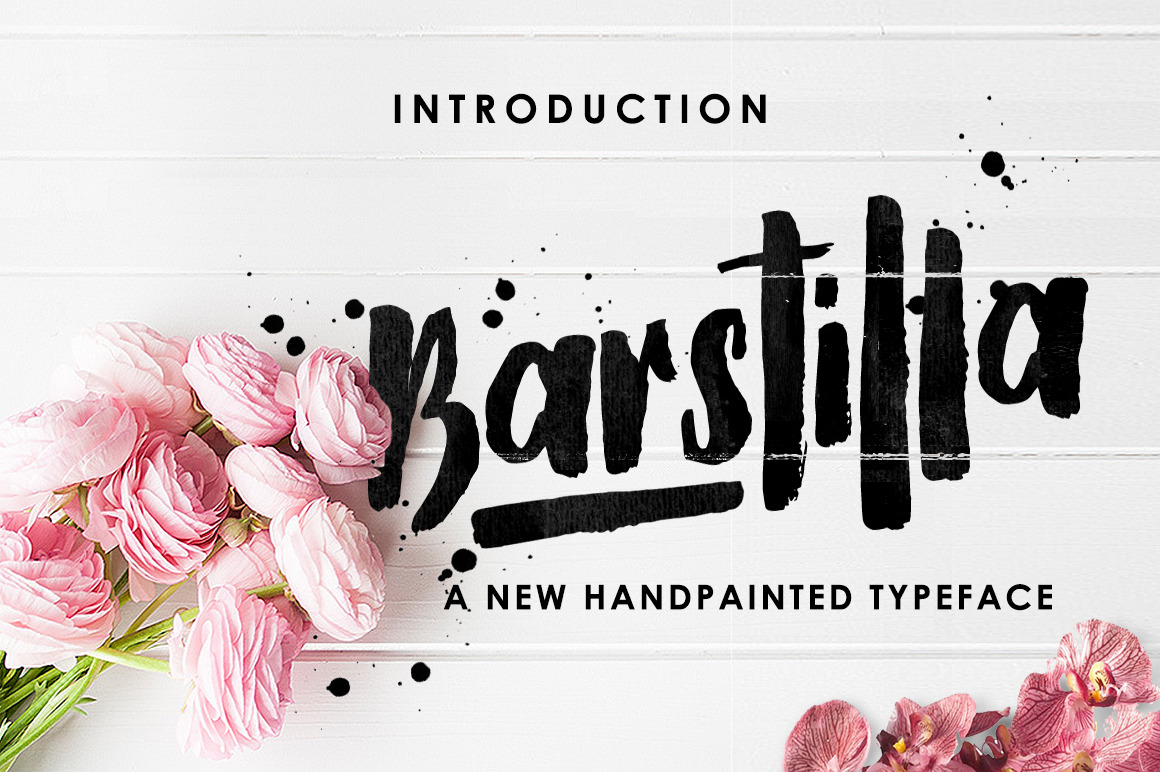
Barstilla Handpainted Typeface
Barstilla is a handpainted font, semi-script font with tight kerning, and a fun. It’s nice and bold, Perfectly fit for your wedding card design, some handcrafted products, typography on products, branding, invitations, fliers, posters and more! hope you enjoy